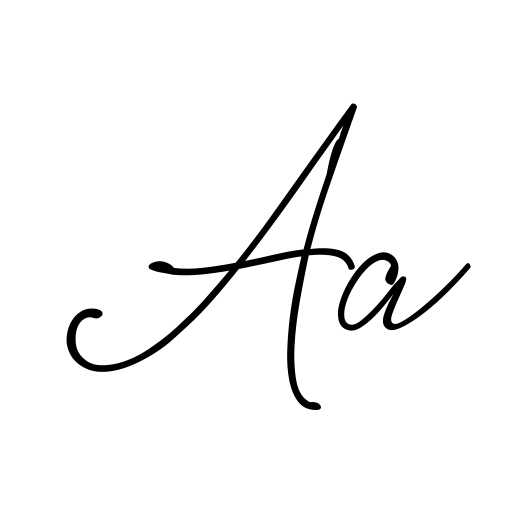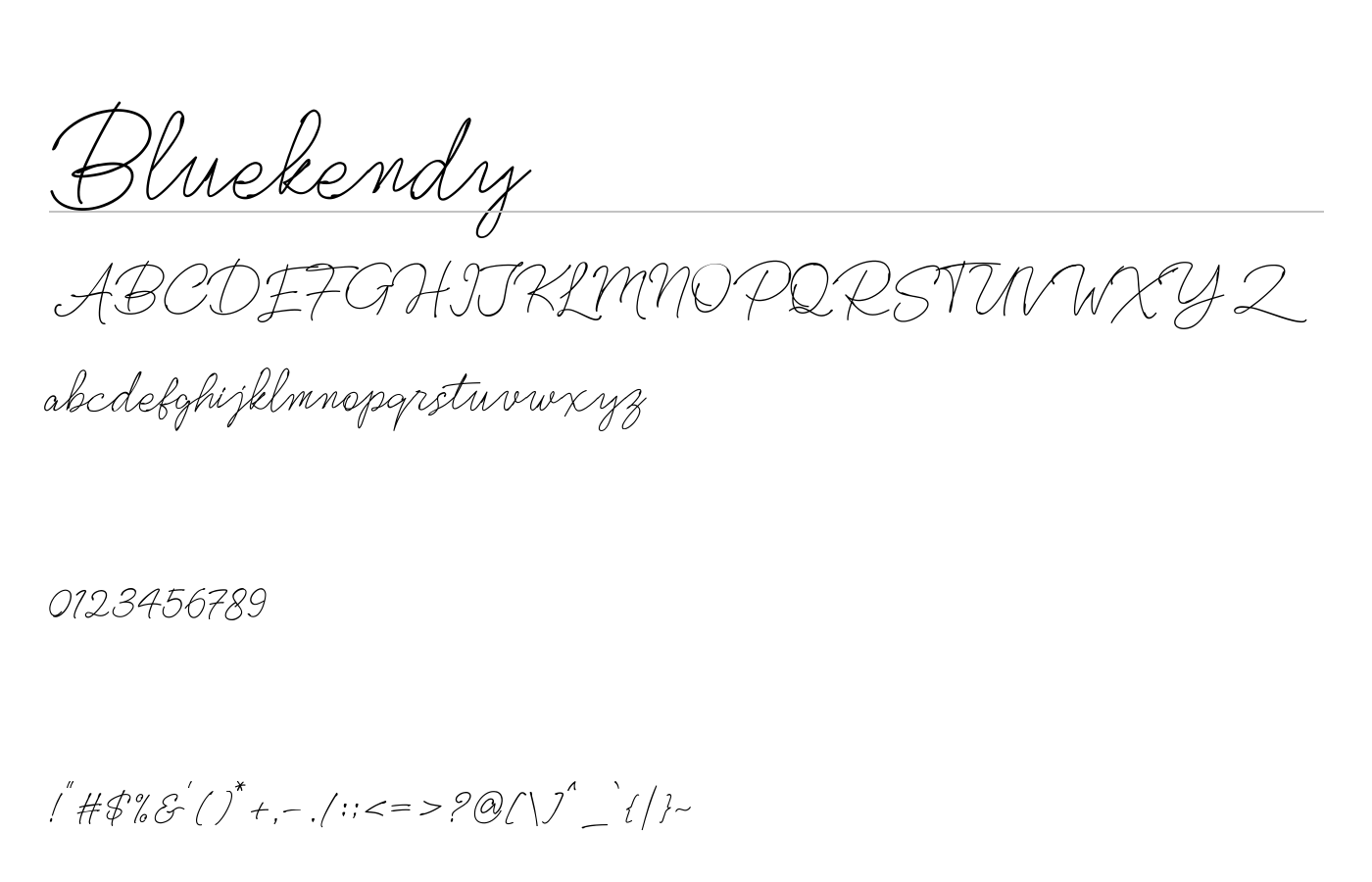
Bluekendy is a delicate, elegant script font with a light weight and airy flow, featuring slender, connected strokes that resemble natural handwriting. Its graceful curves and refined letterforms make it ideal for sophisticated branding, invitations, and creative projects that seek a personal, stylish touch. This font works beautifully in headlines or small text accents where a soft and artistic impression is desired.
Bluekendy Font
About Bluekendy Font
| Font family | Bluekendy Font |